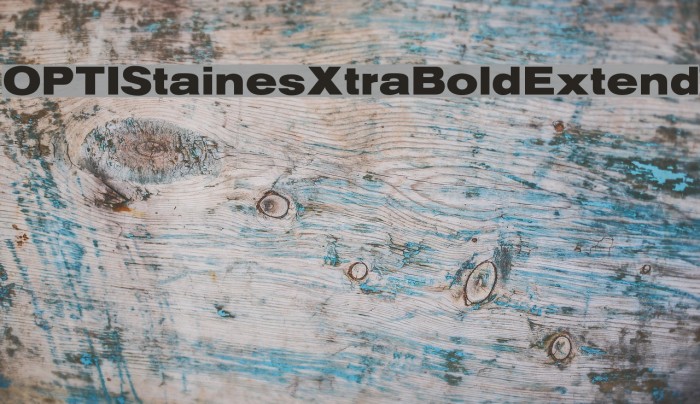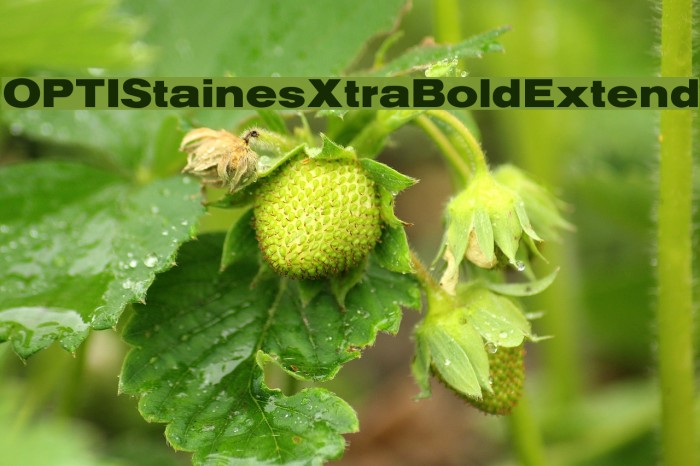
OPTIStainesXtraBoldExtend Font
This font is characterized by its bold and extended letterforms, offering a strong and impactful presence. The uppercase and lowercase letters are uniformly bold, with a consistent stroke thickness that enhances readability. The numbers and special characters maintain the same boldness, ensuring a cohesive look across all text elements. The font's design is modern and straightforward, making it suitable for attention-grabbing headlines and titles. Its extended width provides a sense of stability and strength, while the tight character spacing ensures compactness without sacrificing clarity.
A bold, extended font with a modern and impactful style.
- Proposed Projects: Ideal for headlines, posters, branding materials, and any project requiring a strong visual impact.